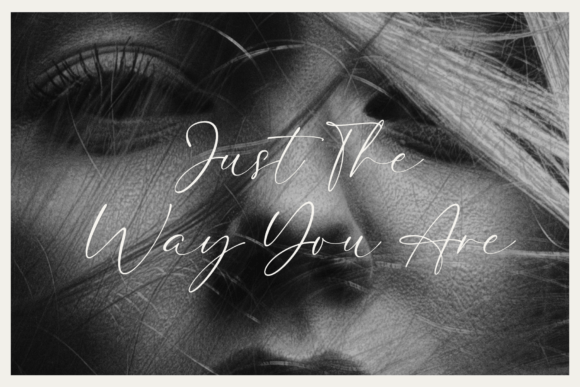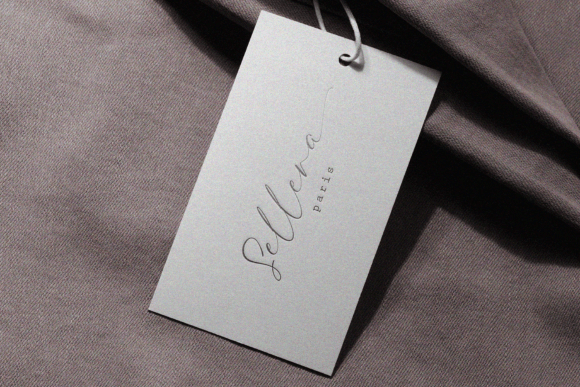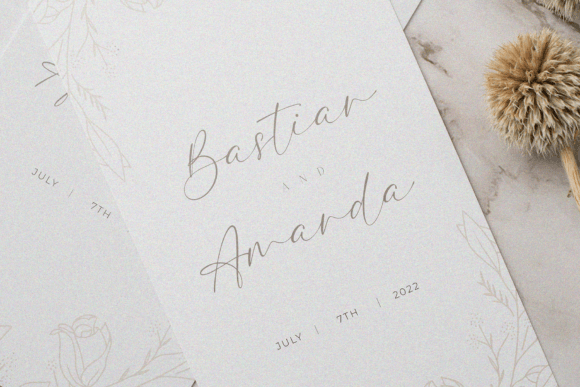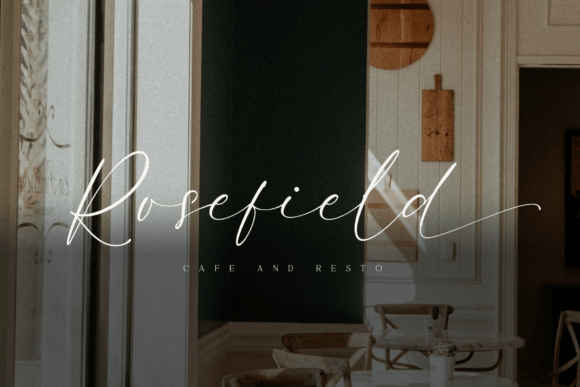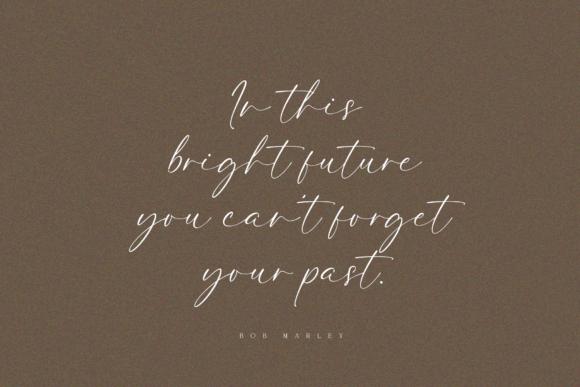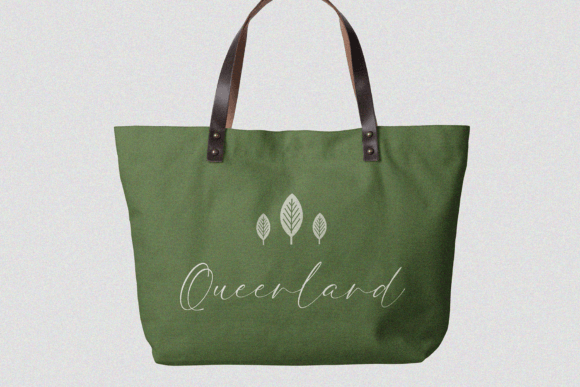
Introduction to Kaithlyn Font
As you sit at your desk, surrounded by scraps of paper and a sea of ideas, the moment of truth arrives. You’re about to bring your creative project to life, and the right font can make all the difference. That’s where Kaithlyn Font comes in – a beautifully crafted script calligraphy font that exudes elegance and sophistication.
Whether you’re designing a luxurious wedding invitation or a refined logo, Kaithlyn Font is the perfect design resource to elevate your work. Its hand-drawn strokes and stunning swashes will transport you to a world of classic calligraphy, where every letter is a work of art. With its high-quality design and transparent background, Kaithlyn Font is the ultimate free download for any designer looking to add a touch of sophistication to their work.
Key Features of Kaithlyn Font
- Unique, hand-drawn design with a transparent background, allowing for seamless integration into any design project.
- Includes a wide range of characters, including uppercase and lowercase letters, numbers, and special symbols.
- Designed with a high resolution of 300 DPI, ensuring crisp and clear typography in various print and digital applications.
- Suitable for use in a variety of design contexts, including logos, branding, and advertising materials.
Honest Review: Kaithlyn Font
I recently had the chance to work with the Kaithlyn Font for a creative project, and I must say it’s been a game-changer. The high quality of the font made it stand out from the rest, and its versatility allowed me to use it for a wide range of design elements.
Here are some of the things that work well with Kaithlyn Font:
- High quality design
- No bold or italic versions
- Not ideal for very large text
Overall, I’m really impressed with Kaithlyn Font. It’s a great addition to any designer’s toolkit, and I wouldn’t hesitate to recommend it to others. With its high quality design and transparent background, it’s a perfect resource for any creative project.
Tips for Getting the Most Out of Kaithlyn Font
Use the Kaithlyn Font in conjunction with a transparent background to create a modern and sleek design. Experiment with different font sizes and styles to add visual interest to your design.
The Kaithlyn Font is ideal for a variety of design projects, including social media graphics, presentations, posters, flyers, business cards, and infographics. Its high-quality design and transparent background make it a great resource for designers and non-designers alike.
The Great Vibes Font is a high-quality, elegant script font perfect for creative projects that require a touch of sophistication. It’s ideal for wedding invitations, quotes, or any design where a beautiful, cursive style is needed. When to use: weddings, quotes, elegant invitations. Comparison to Kaithlyn Font: Great Vibes Font has a more refined and delicate feel compared to Kaithlyn Font’s bolder and more playful style.
Alex Brush Font is a high-quality, handwritten font that’s great for creative projects that require a personal touch. It’s perfect for designers looking for a unique and elegant font for their designs. When to use: personal projects, quotes, invitations. Comparison to Kaithlyn Font: Alex Brush Font has a more subtle and refined feel compared to Kaithlyn Font’s bold and playful style.
Yes, the Kaithlyn Font has a transparent background, making it perfect for designing graphics with complex backgrounds or layered compositions. Simply apply the font to your design and adjust the layer settings to achieve the desired effect.